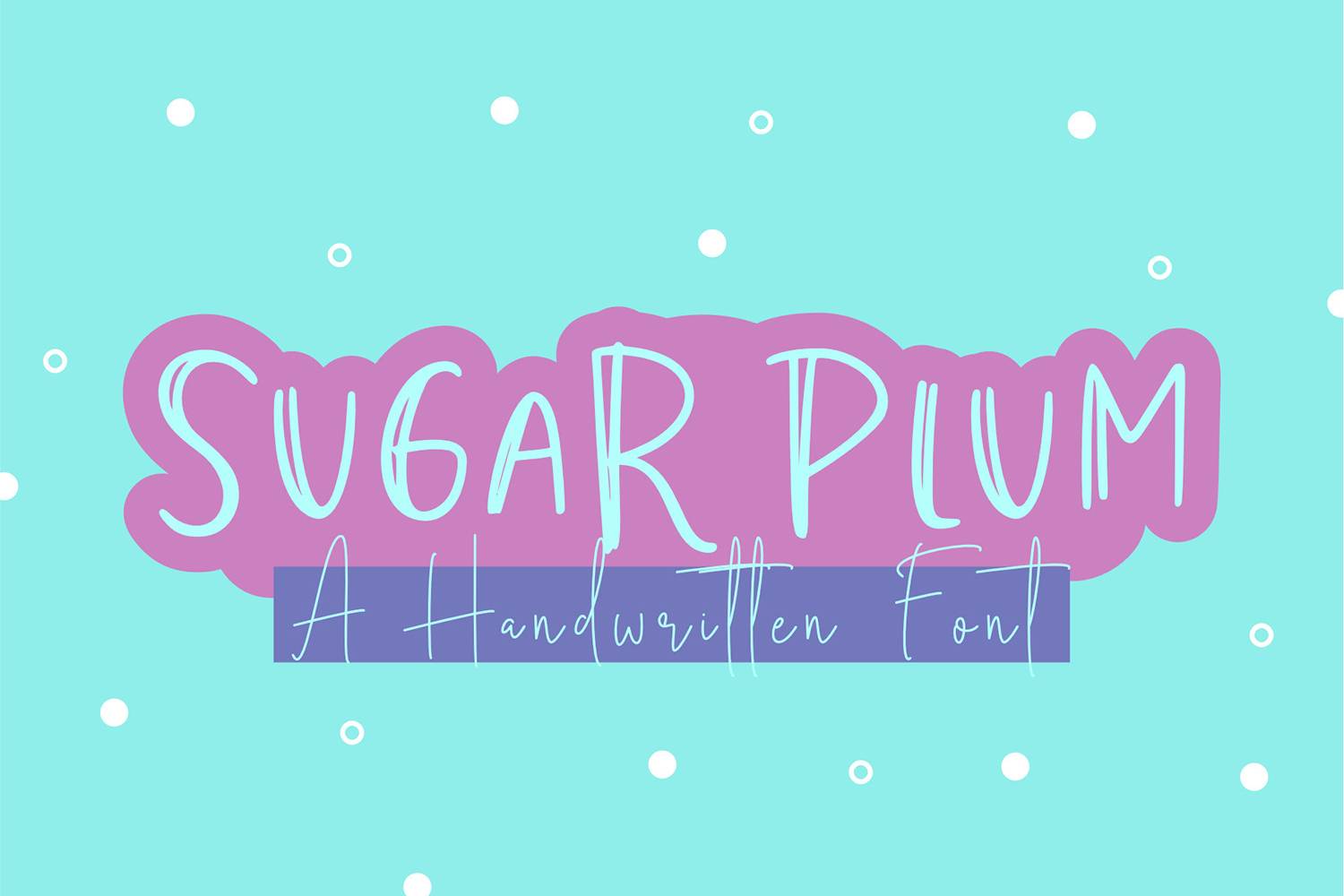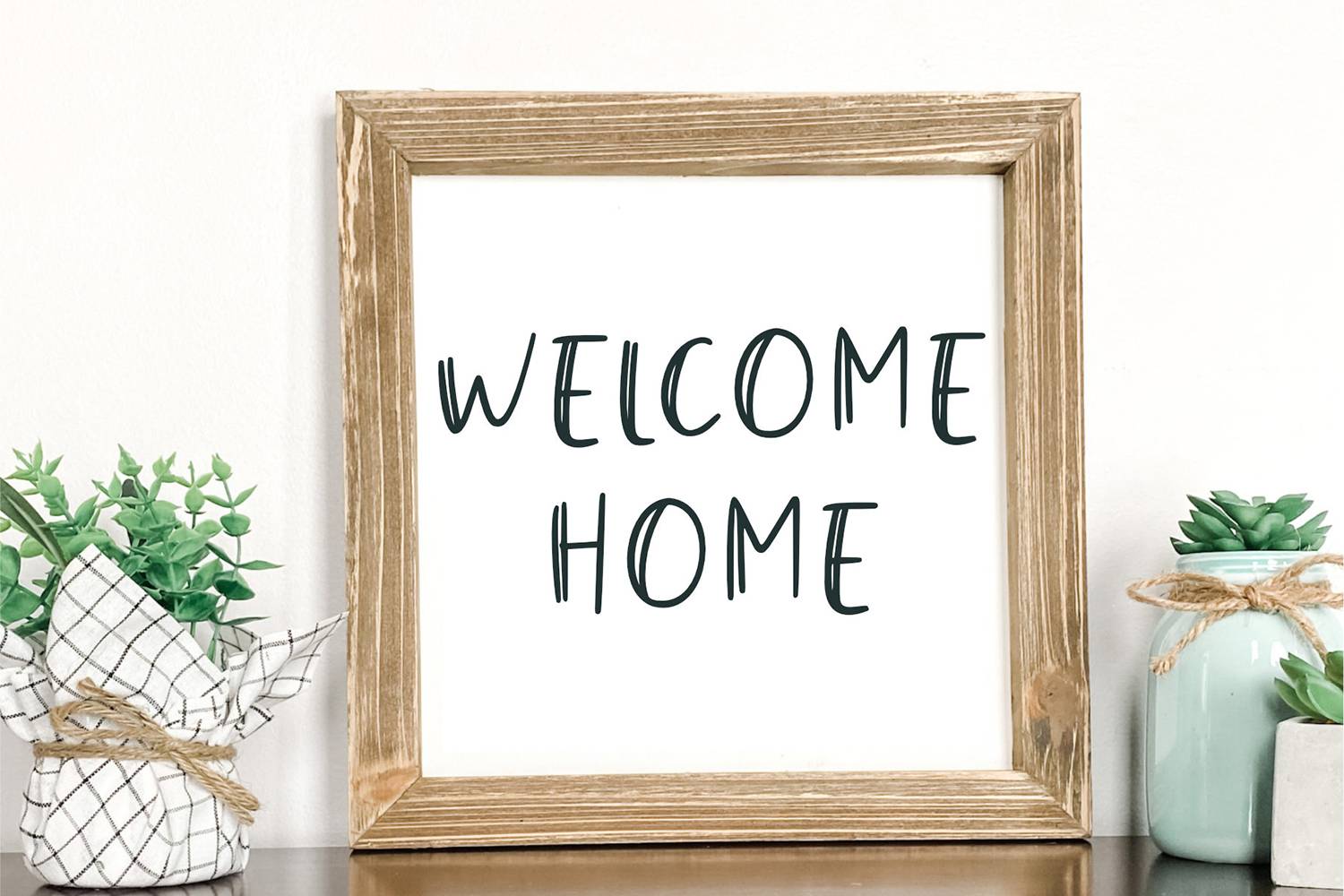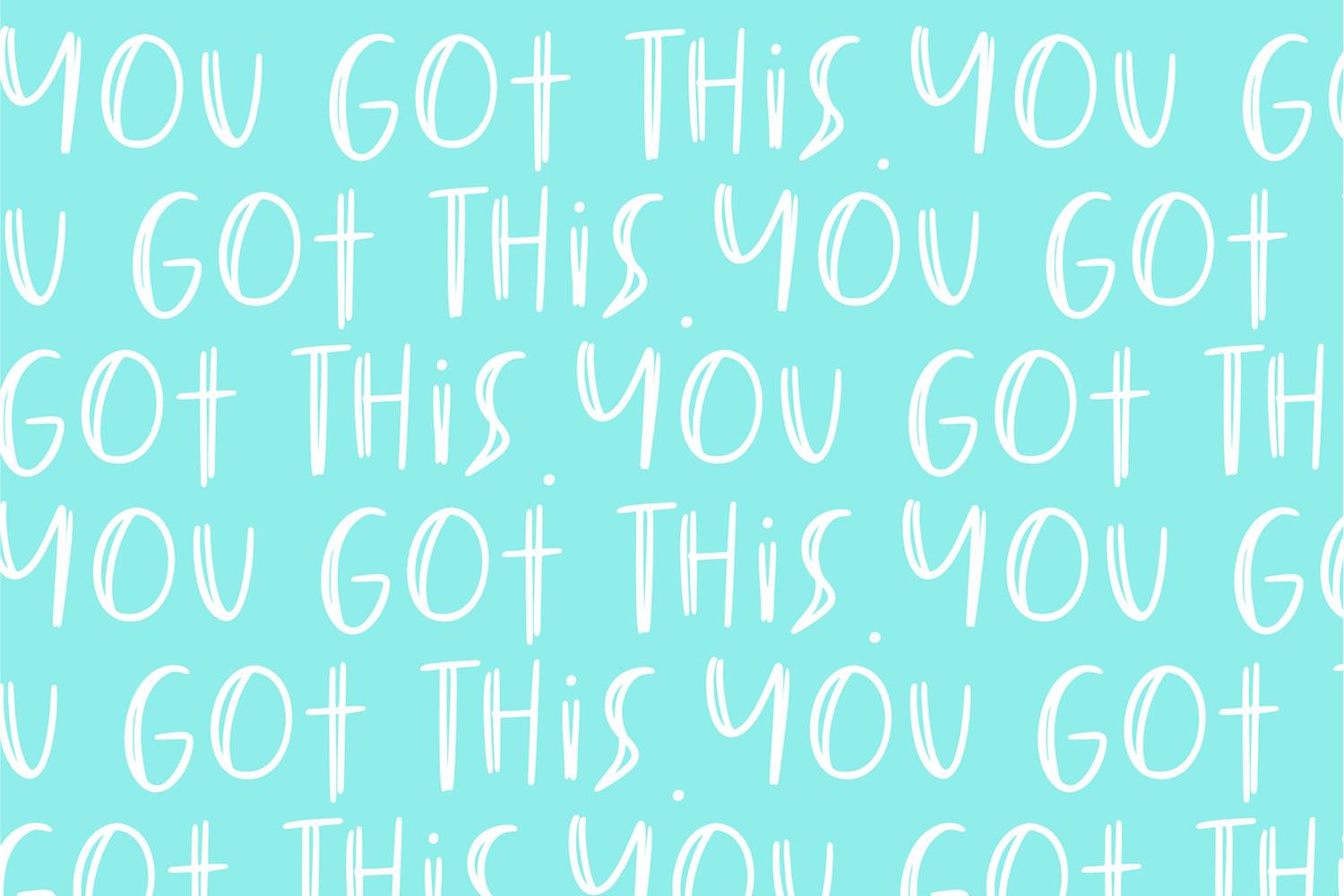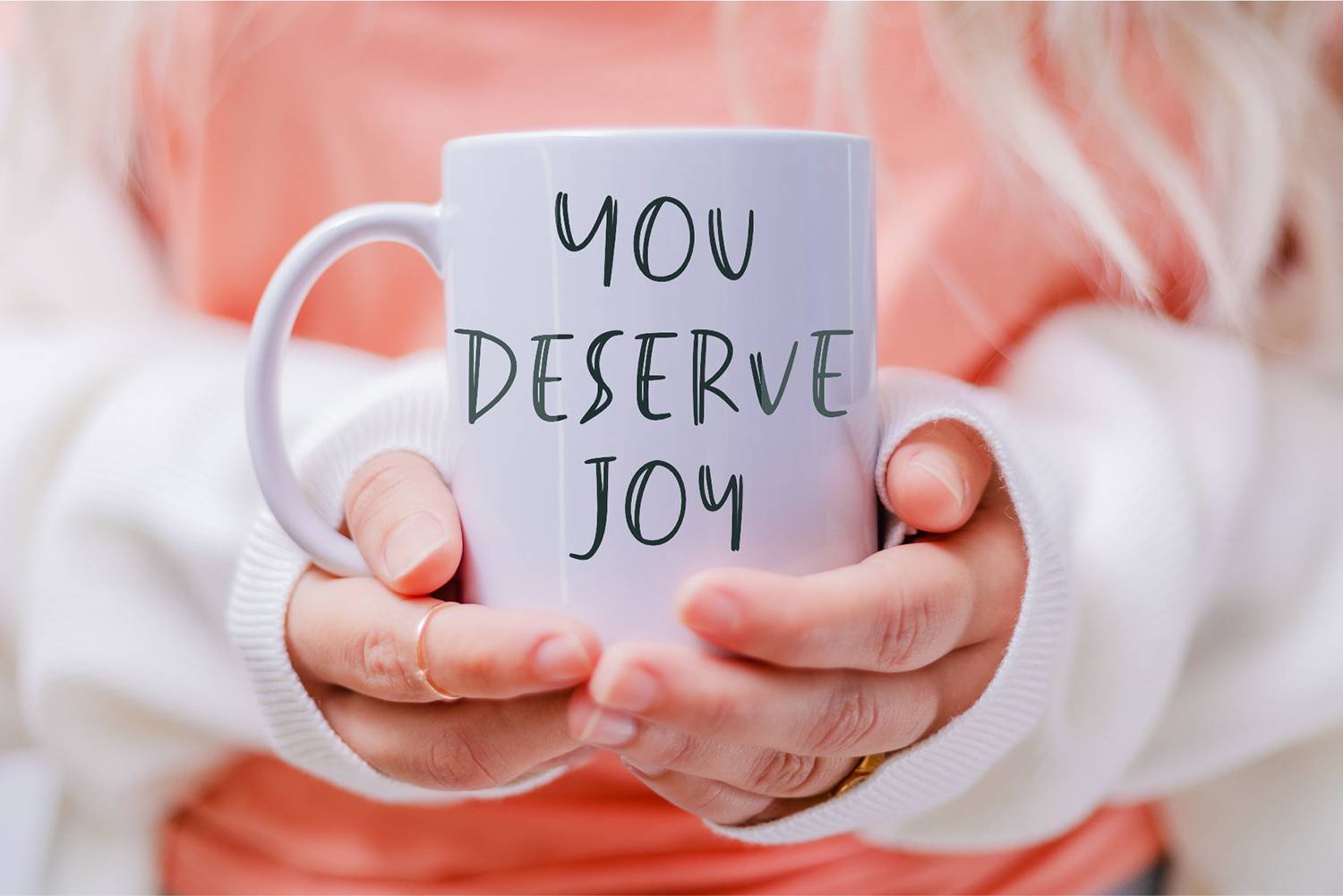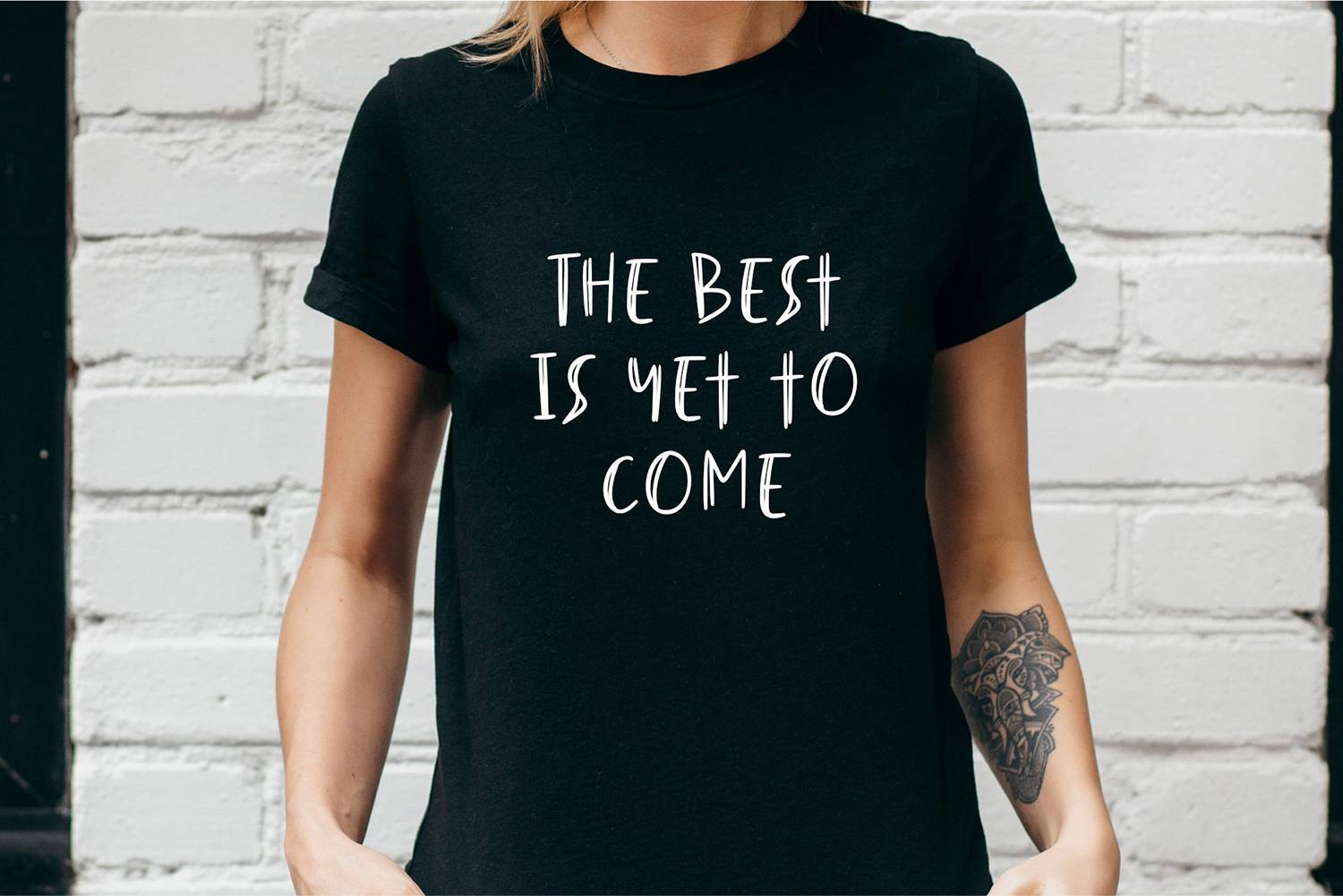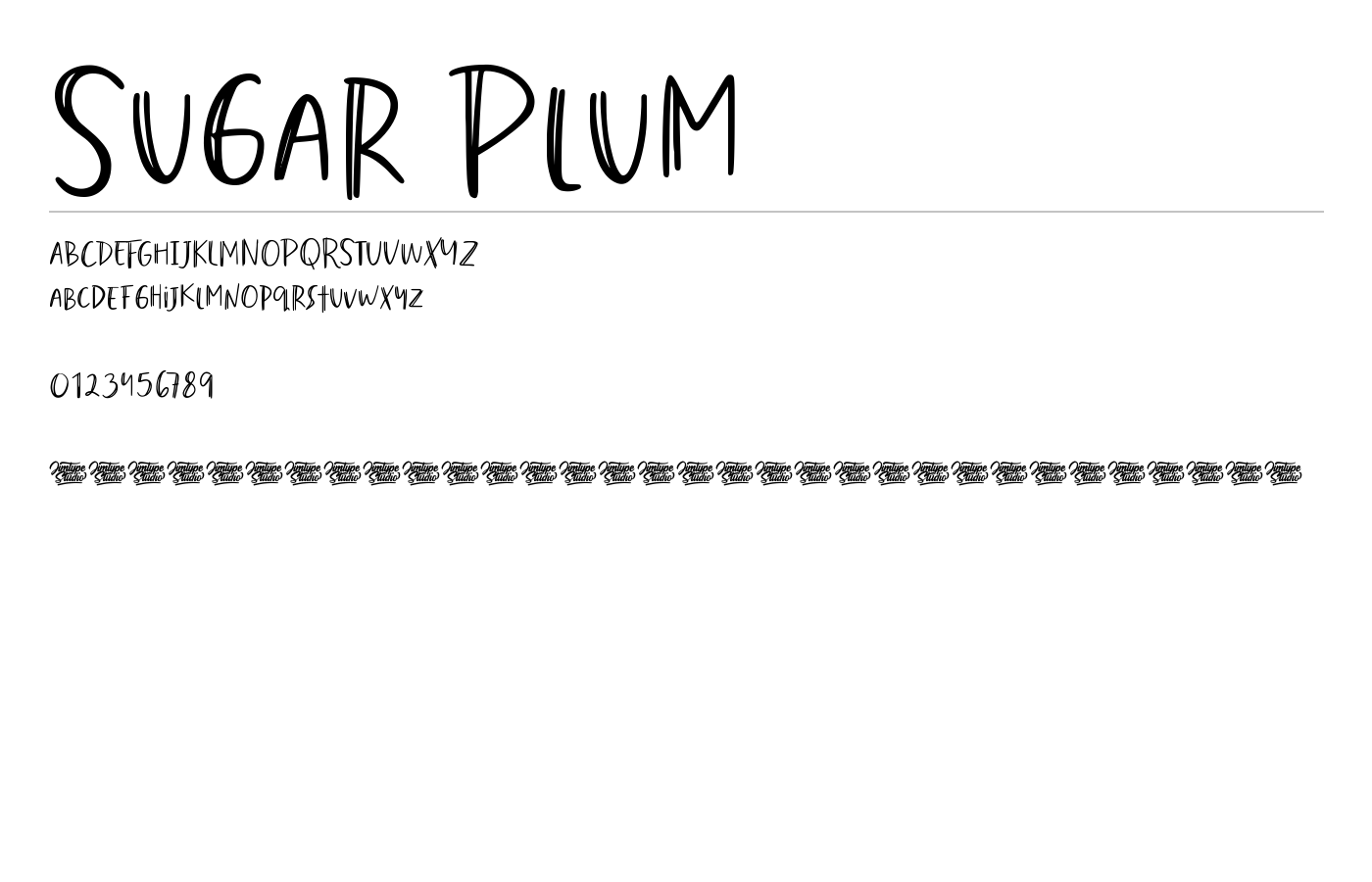
Sugar Plum is a playful, hand-drawn sans serif font with tall, narrow letterforms that give it a whimsical and lighthearted feel. Its irregular strokes and casual style make it perfect for informal designs, crafts, or children’s projects where a fun and approachable personality is desired. This font works best in headlines, invitations, or branding that aims to convey creativity and friendliness.
Sugar Plum Font
About Sugar Plum Font